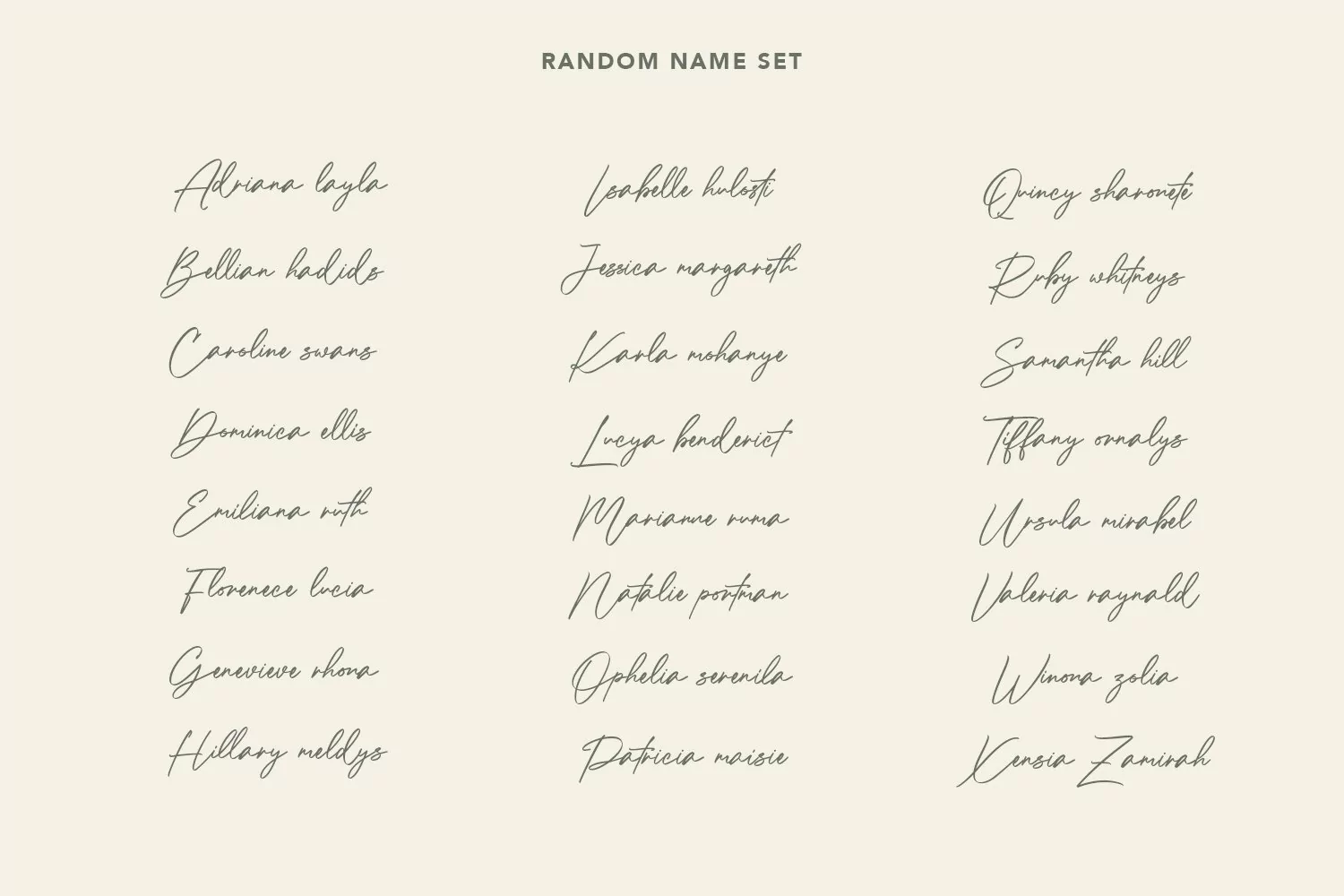
Le Patterns is a casual script font, With a high contrast stroke clean and fun characters. It has Opentype features of ligatures, makes it a perfect choice for branding and digital designs. Use this font for logos, social media, websites, blogs, instagram, social media, business cards, branding, and more! Le Patterns font support multilingual more than 100+ language. and good pair for your secondary text font with sans or serif. Make a stunning work with Le Patterns script font.